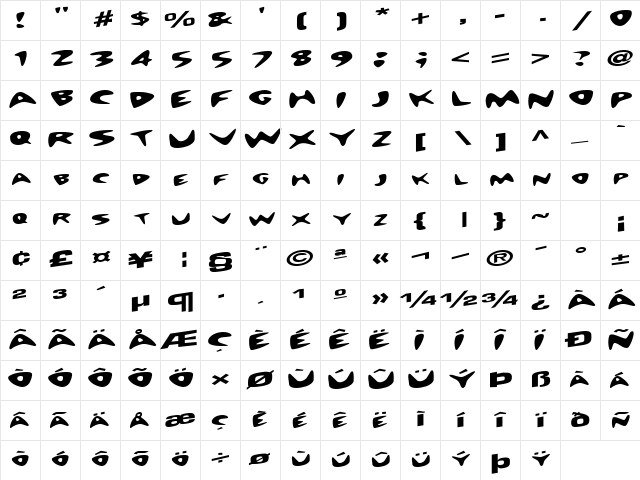
PathFinderType5 Regular
Design Context for PathFinderType5
PathFinderType5 is a composed and adaptable typeface that performs quietly and consistently across a wide range of design contexts.
Pro Tip: Use PathFinderType5 in both headline and body roles to test its range before committing to a single application.